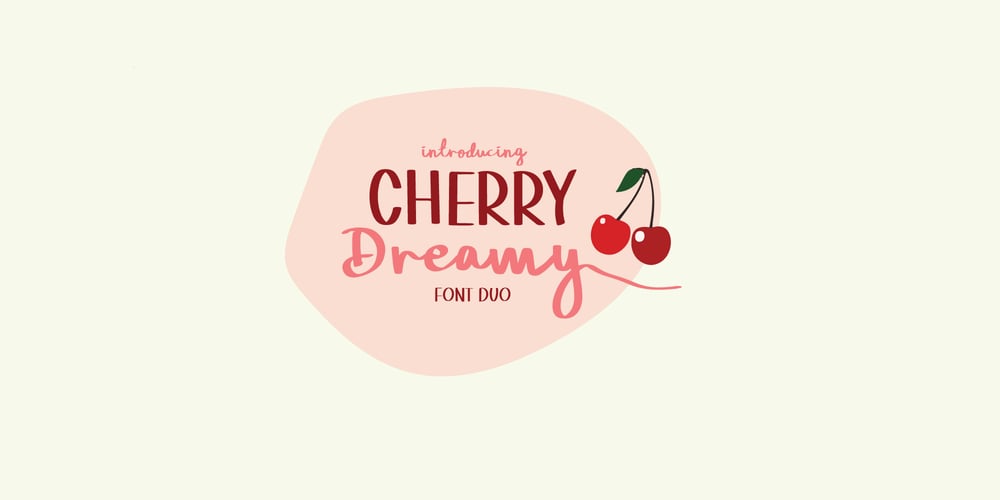
Cherry Dreamy Font Family was designed by Lia Almuknisa and published by Fromletterel. Cherry Dreamy contains 4 styles and family package options. Cherry Dreamy is a font duo of lovely script and tidy hand-lettered font. Those fonts match really well with each other. Cherry Dreamy script featured with few ligatures to give you some surprise and make this font more interesting, also included with swash alternates so it becomes lovelier. Perfect for heading, flyer, cards, branding, web design, quotes, etc.